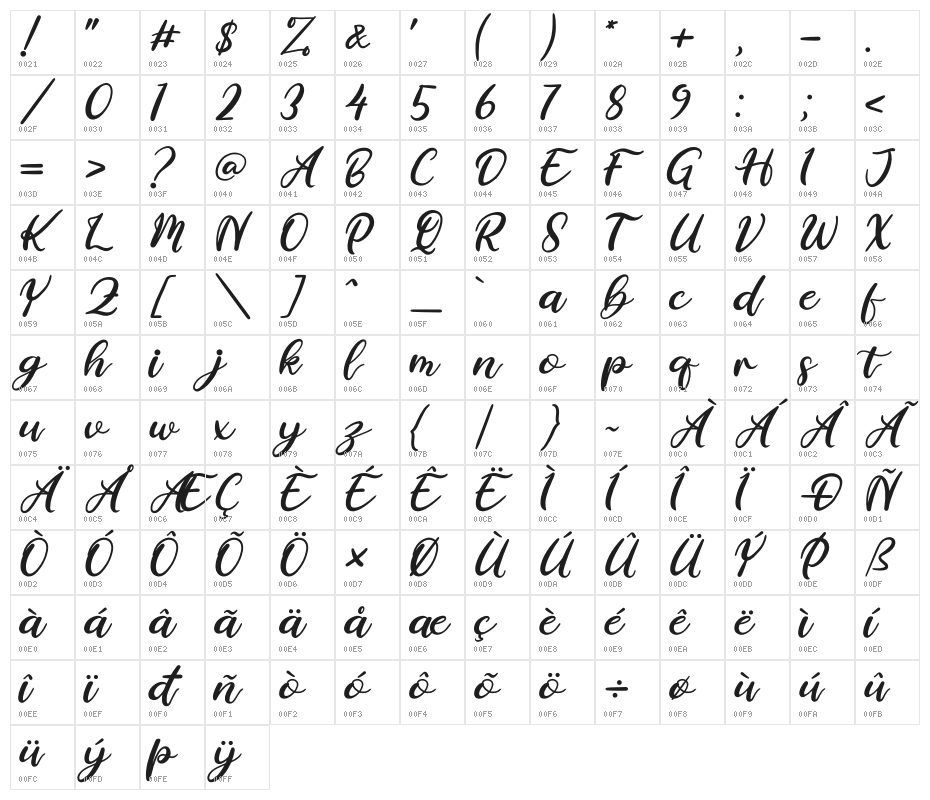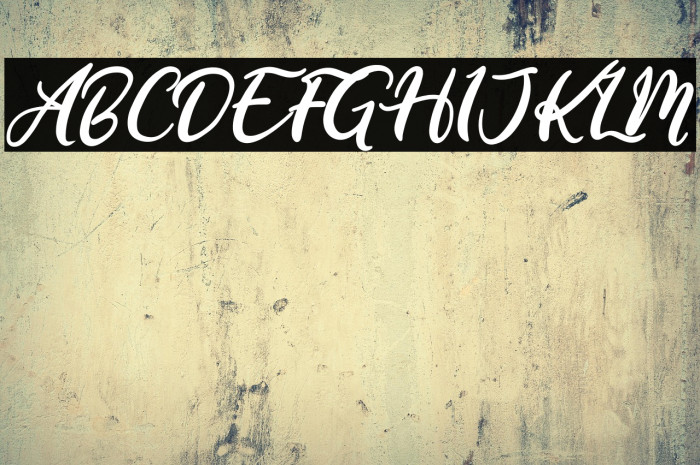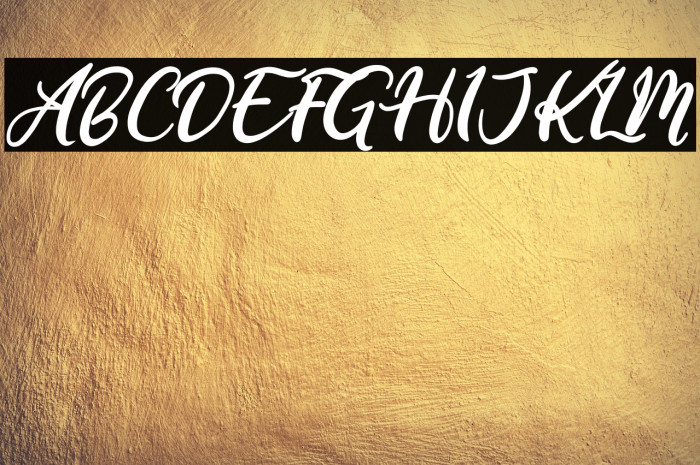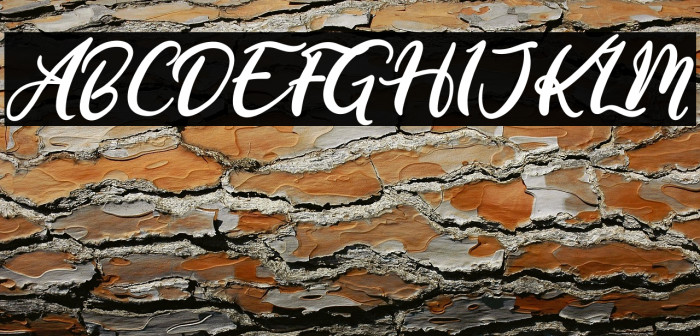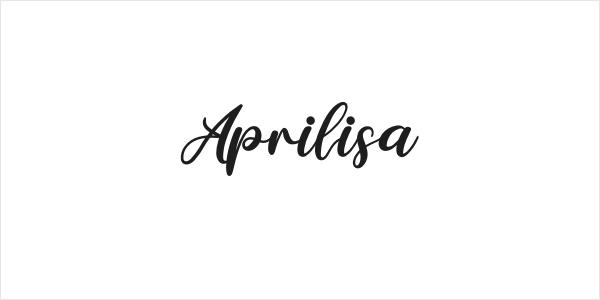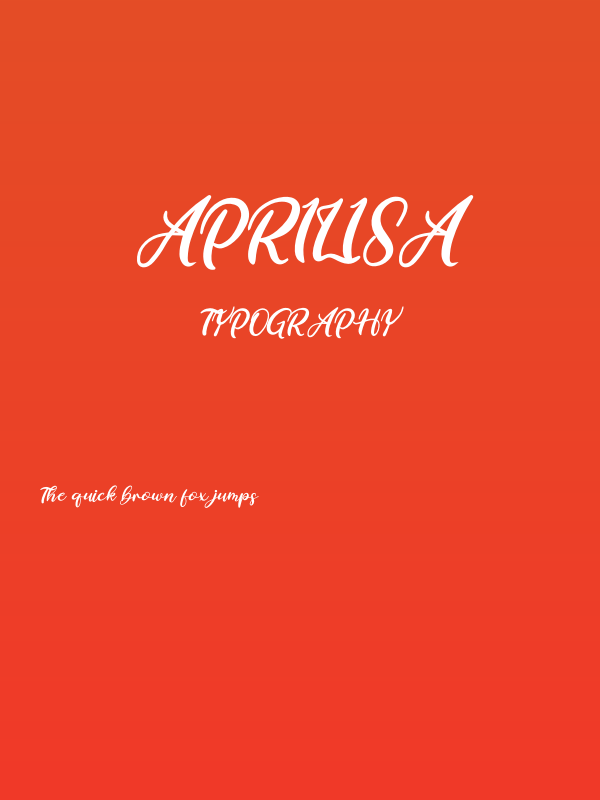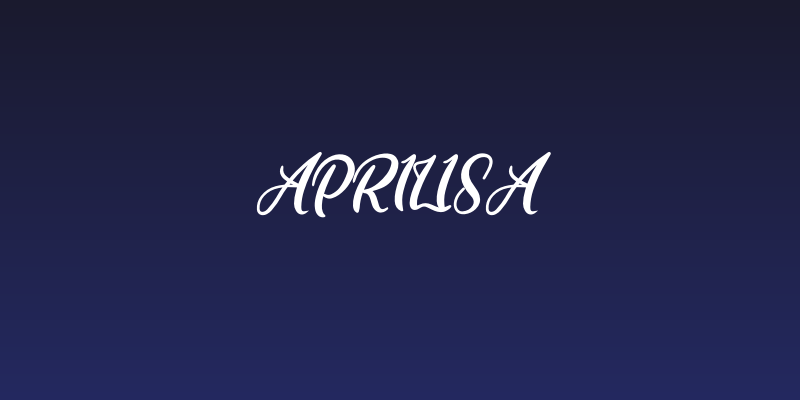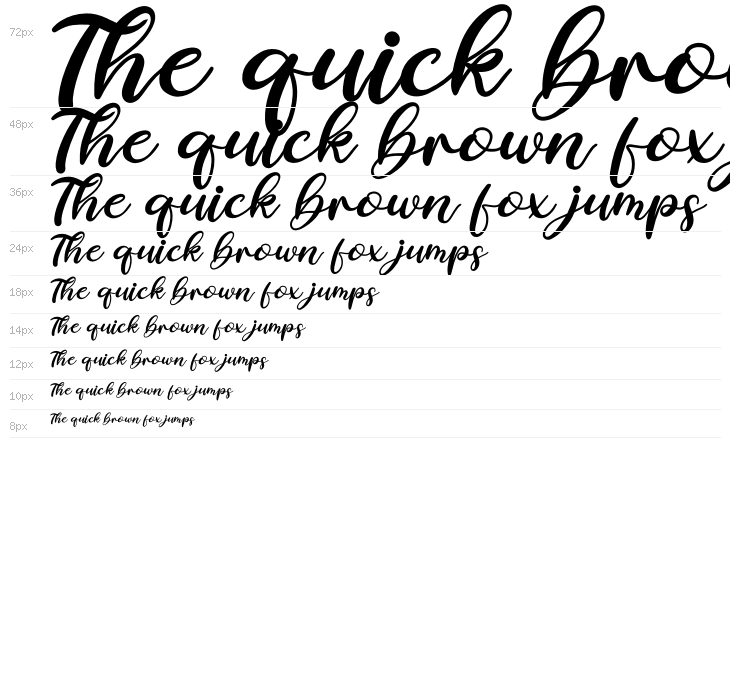
Aprilisa Font
Aprilisa Description
This font exudes a lively and energetic script style, characterized by its flowing, cursive letterforms. The uppercase letters are bold and dynamic, with sweeping curves and elegant loops, while the lowercase letters maintain a consistent rhythm and fluidity. The numerals are equally expressive, with a playful yet sophisticated appearance. Special characters are thoughtfully integrated, enhancing the overall aesthetic. The font's design is both modern and timeless, making it versatile for various creative applications.